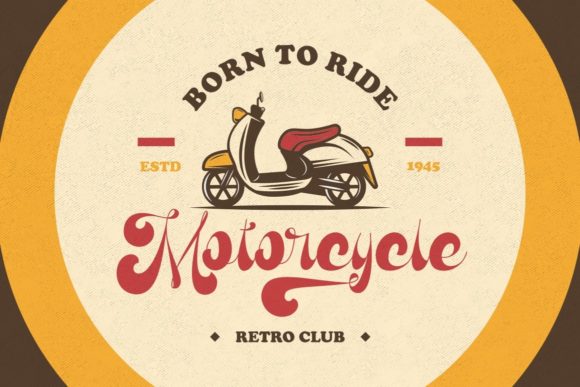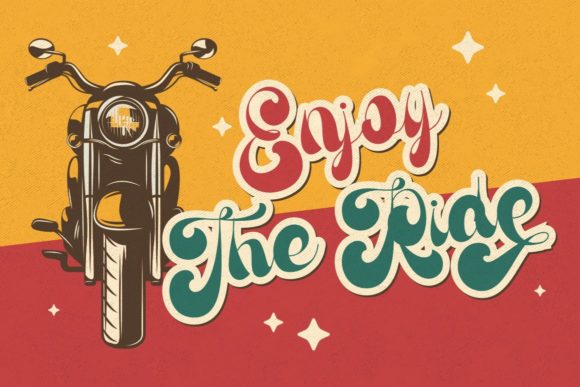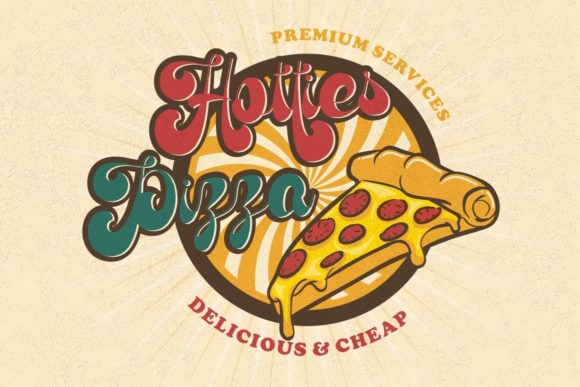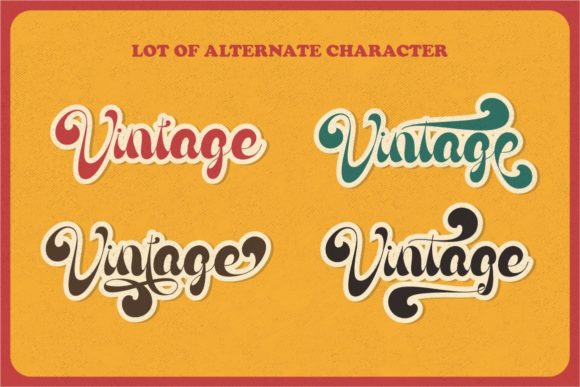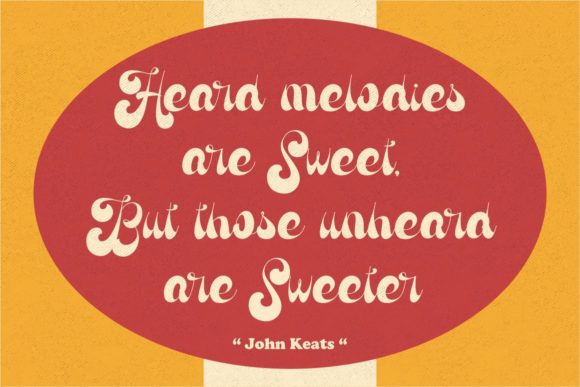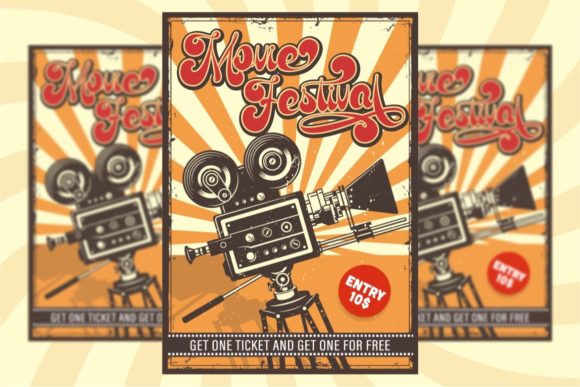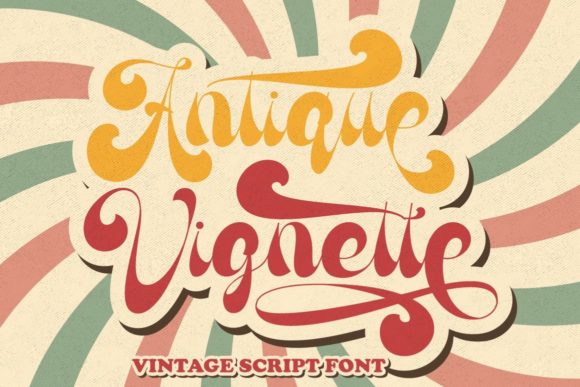
Discover the Charm of Antique Vignette Font: Elevate Your Designs with a Vintage Twist
Are you a designer or crafter looking for a unique and captivating font to add a touch of vintage charm to your projects? Look no further than the Antique Vignette Font. This quirky vintage script font is the perfect blend of classic lettering and groovy style, making it an ideal choice for a wide range of creative endeavors.
What is Antique Vignette Font?
Antique Vignette Font is a carefully crafted script font that embodies the essence of vintage and retro styles. Its distinctive characters and elegant flair make it a standout choice for designers seeking to add a touch of sophistication and whimsy to their work. Whether you’re creating logos, branding materials, or simply looking for a unique font for your next project, Antique Vignette Font is sure to impress.
The Perfect Blend of Vintage and Groovy
One of the key features that sets Antique Vignette Font apart is its perfect blend of vintage and groovy styles. This font seamlessly combines the classic elegance of traditional lettering with the playful, laid-back vibe of retro and groovy designs. The result is a font that is both timeless and trendy, making it suitable for a wide range of projects and themes.
Ideal for Vintage, Retro, and Groovy Themes
As its name suggests, Antique Vignette Font is particularly well-suited for projects with vintage, retro, or groovy themes. Whether you’re creating posters, flyers, or social media graphics, this font is sure to add a touch of authenticity and charm to your designs. Its unique character and flair make it an excellent choice for designers looking to evoke a sense of nostalgia or playfulness in their work.
Versatile and Multifaceted
Antique Vignette Font is more than just a pretty face – it’s also incredibly versatile and multifaceted. This font can be used for a wide range of projects, including:
- Lettering and typography
- Badges and emblems
- Quotes and posters
- SVG files and graphics
- Book titles and packaging
- T-shirts and apparel
Whether you’re a professional designer or a crafty DIY enthusiast, Antique Vignette Font is sure to become a go-to choice for your creative projects.
Why Choose Antique Vignette Font?
So why choose Antique Vignette Font over other fonts on the market? Here are just a few reasons why this font stands out:
- Unique and distinctive character
- Perfect blend of vintage and groovy styles
- Highly versatile and multifaceted
- Easily readable and legible
Tips and Tricks for Using Antique Vignette Font
To get the most out of Antique Vignette Font, here are a few tips and tricks to keep in mind:
- Pair Antique Vignette Font with other fonts and typography to create a unique and eye-catching look
- Use the font’s distinctive characters and flourishes to add visual interest and emphasis to your designs
- Don’t be afraid to get creative and try new things – Antique Vignette Font is a versatile and forgiving font that can handle a wide range of design approaches
In conclusion, Antique Vignette Font is a unique and captivating font that is sure to elevate your designs and add a touch of vintage charm to your projects. With its perfect blend of classic lettering and groovy style, this font is an ideal choice for designers and crafters looking to create a wide range of creative endeavors. Whether you’re working on a vintage-themed poster, a retro-inspired logo, or simply looking for a unique font for your next project, Antique Vignette Font is sure to impress.